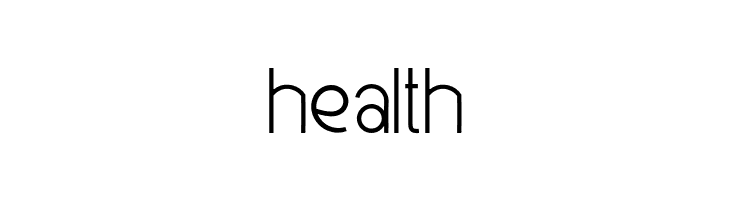
A bold, high-contrast font with elegant serifs and a luxurious style.
A sophisticated serif font with high contrast and elegant serifs.
A bold, geometric font with a modern and distinctive style.
Hand-drawn, food-themed cartoon illustrations replace standard glyphs.
A bold, dynamic font with thick, rounded strokes and an artistic flair.
A playful, geometric font with a pixelated, digital style.
A whimsical, book-inspired display font with illustrated, characterful glyphs.
A decorative series of abstract, fish-like shapes with bold, graphic patterns.
Book and reading-themed decorative dingbat font.
A decorative collection of book-themed illustrations.
Ornamental font made of decorative border and divider elements.
A bold, modern sans-serif font with clean lines and excellent readability.
A bold, dynamic font with sharp, angular strokes and a hand-drawn feel.
A diverse set of black and white botanical illustrations with varying levels of detail.
Botanical illustration font with plant and nature motifs for each character.
A playful, matchstick-inspired decorative font with uniform stroke thickness.
A playful, matchstick-like font with a handcrafted appearance.
A whimsical and artistic font featuring expressive, face-like characters.
An abstract, circular, and artistic font with thin, elegant strokes.
A bold, playful font with a distinctive shadow effect and whimsical style.
A classic serif font with elegant strokes and refined serifs.
A bold, shadowed font with sharp, angular edges and a geometric style.
A bold, geometric font with characters enclosed in squares, featuring unique cutouts.
A tactile writing system using raised dots for visually impaired individuals.
A rustic, hand-drawn font with dynamic strokes and a vintage-modern appeal.
A playful, handwritten font with a casual and dynamic style.
A decorative font featuring characters integrated with silhouette scenes.
A jagged, shattered glass-style font with sharp, angular fragments.
A bold, slab serif font with a vintage yet modern appeal.
A bold, brush script font with dynamic strokes and a hand-painted look.
A dynamic, brush-style font with bold, expressive strokes.
The image contains construction-themed illustrations, not a font.
A classic serif font with elegant strokes and balanced proportions.
A flowing, elegant script font with a playful yet sophisticated style.